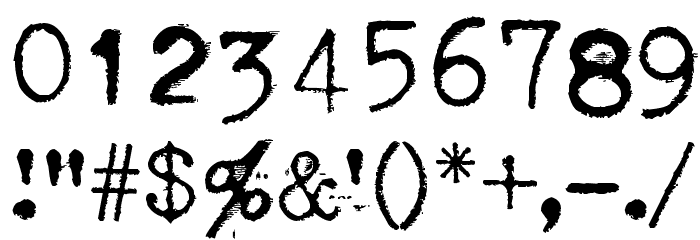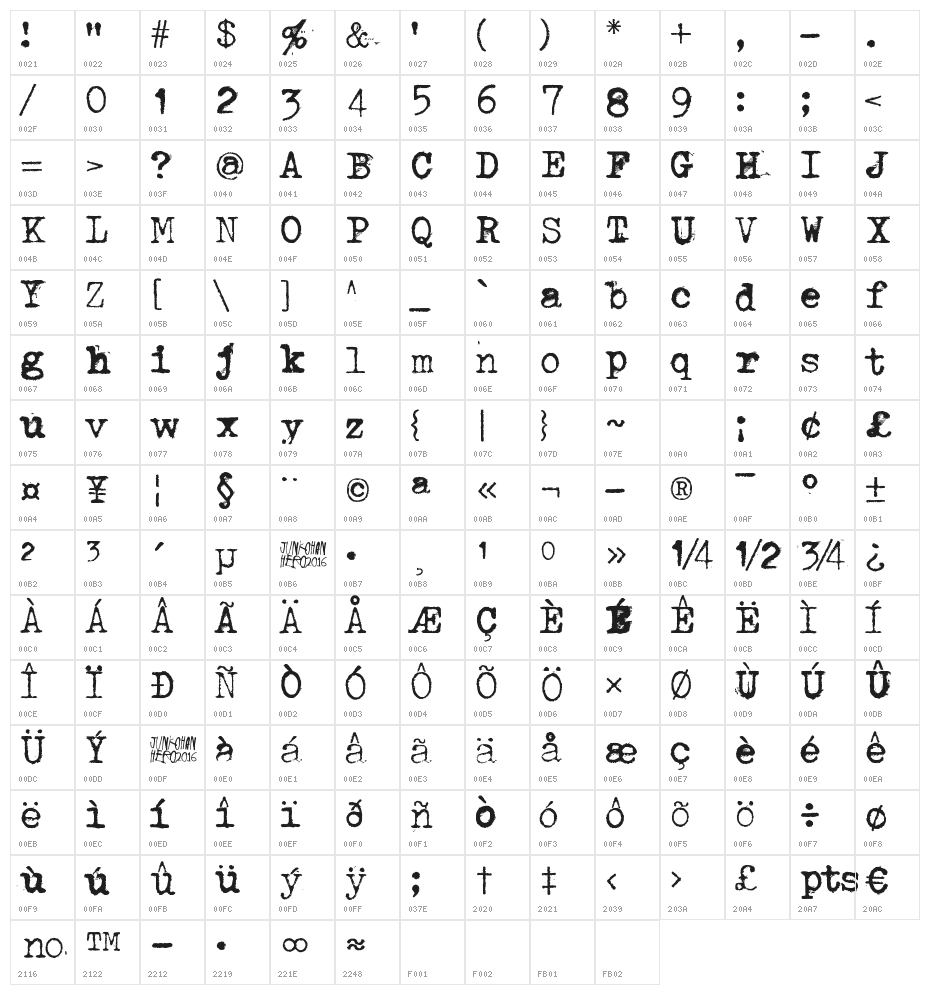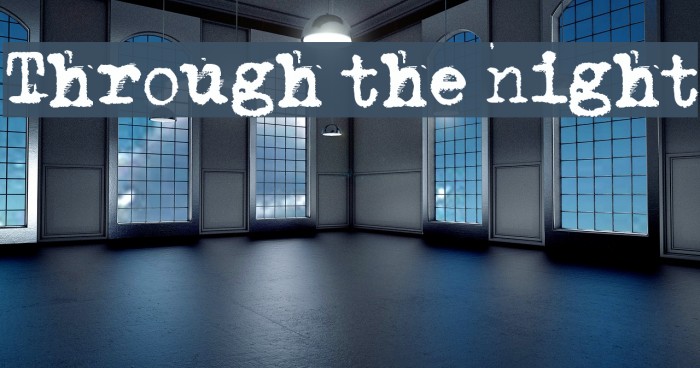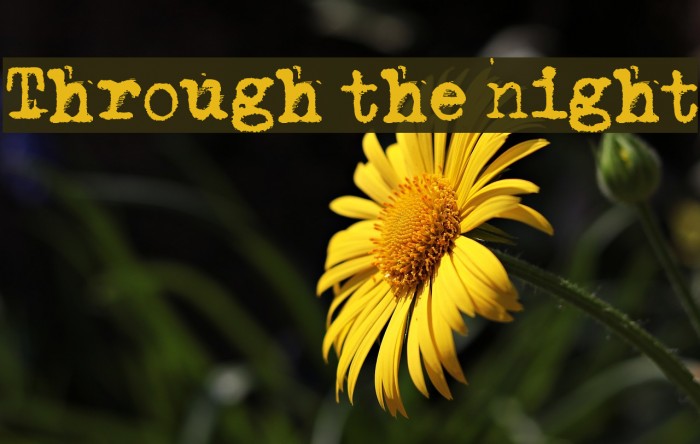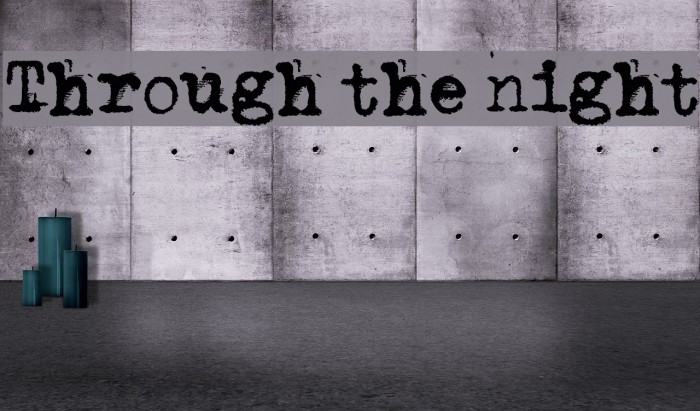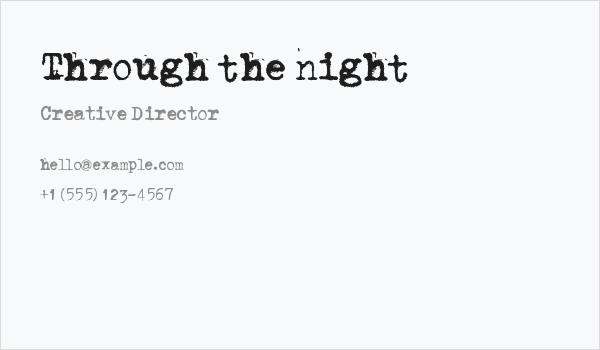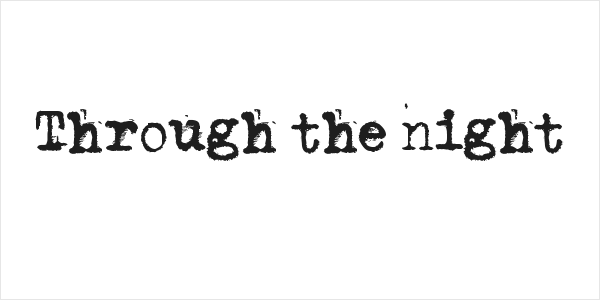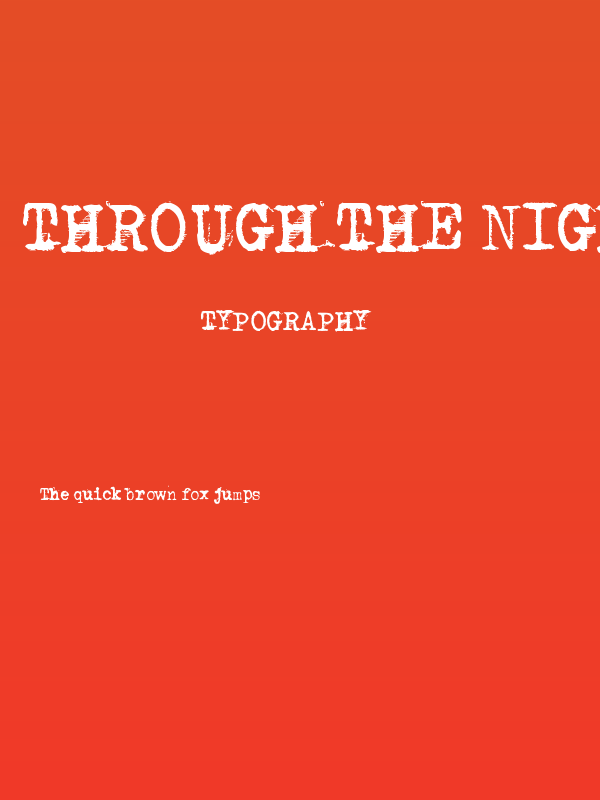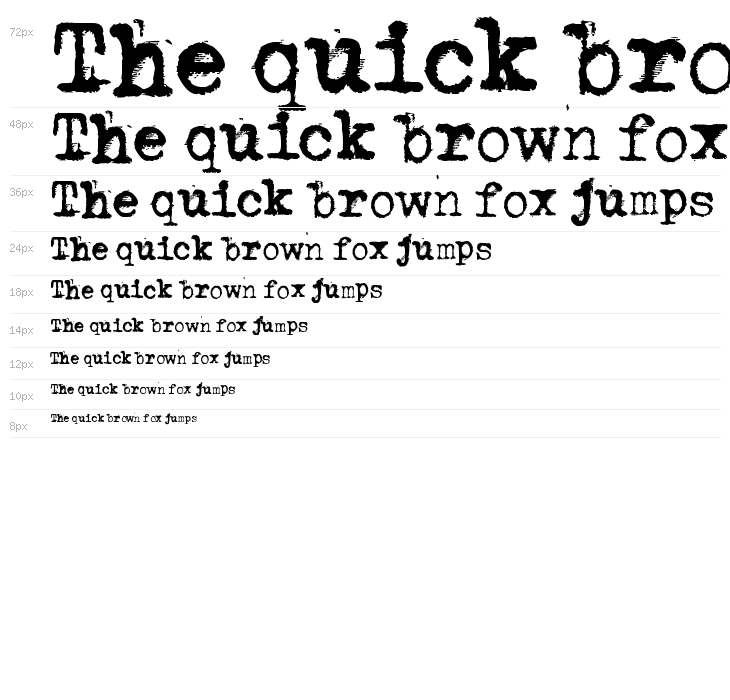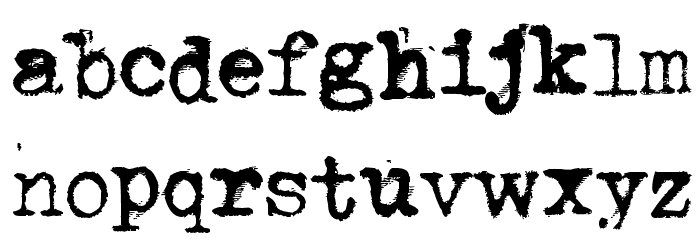
Through the night Font
Through the night Description
This font features a distressed, textured appearance, reminiscent of typewriter or vintage print styles. The characters are bold with uneven edges, giving a rugged and worn look. The uppercase and lowercase letters maintain a consistent style, with a slightly condensed form. Numbers and special characters follow the same aesthetic, adding to the overall cohesive design. The font's unique texture suggests a handcrafted or grunge-inspired theme, making it ideal for projects that require a touch of nostalgia or a raw, organic feel.
| Proposed Projects | Ideal for vintage-themed posters, album covers, book titles, or any design needing a rustic, handcrafted touch. |